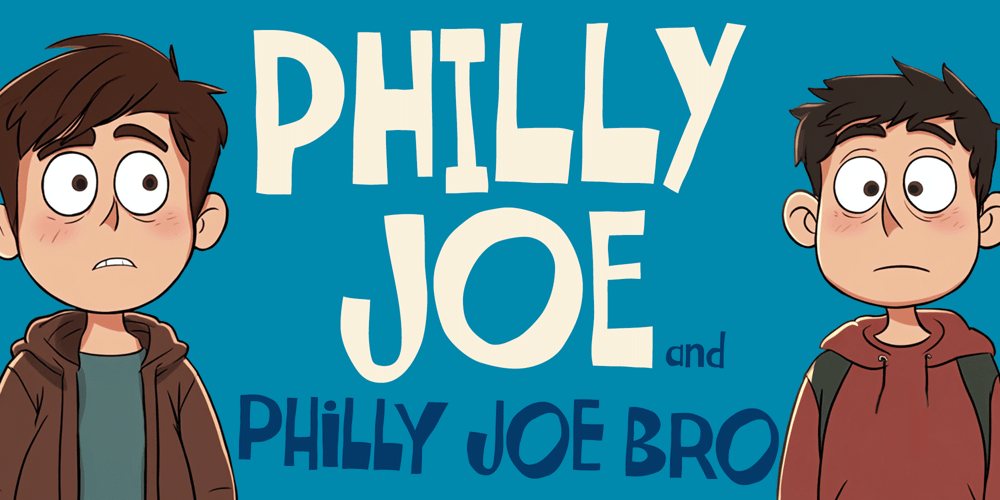
Philly Joe Font Family was designed by Brian J. Bonislawsky, Dave Cohen and published by One Eyed Squid. Philly Joe contains 2 styles and family package options. Looking for an offbeat font duo that is animated, loveably awkward, and friendly to the eyes? You’ve just found it in Philly Joe and his Bro. These hand drawn fonts have just the right amount of appeal for children’s books, animated films, and greeting cards galore.Similar in flavor, yet subtly different in style, these two fonts work well together or on their own.(Both Philly Joe and Philly Joe Bro contain an extended Latin character set with added Vietnamese support.)